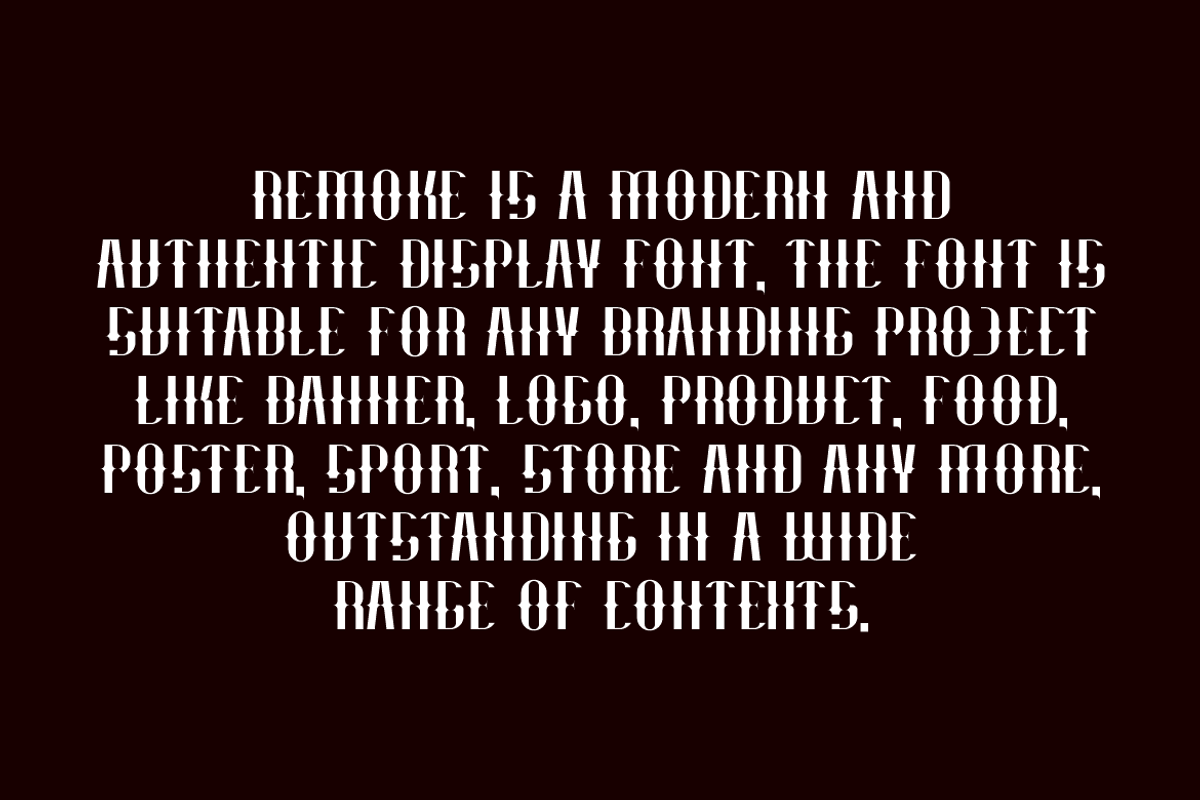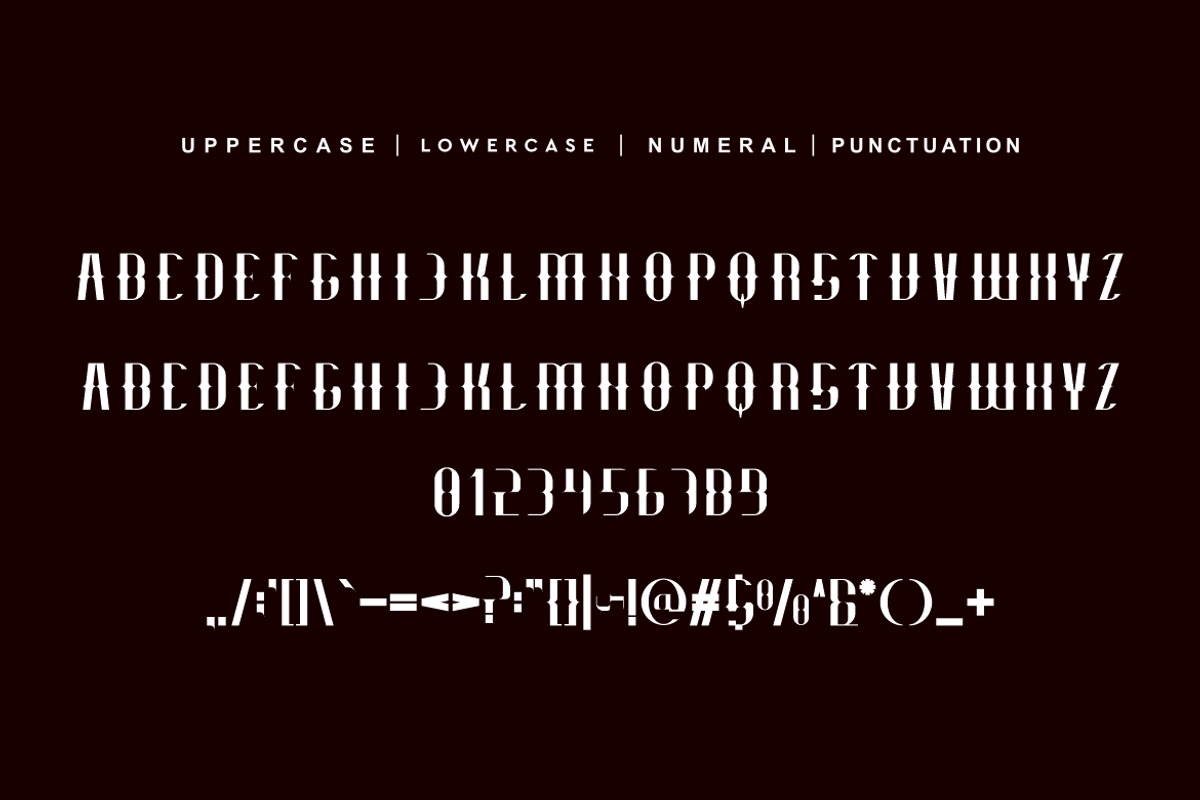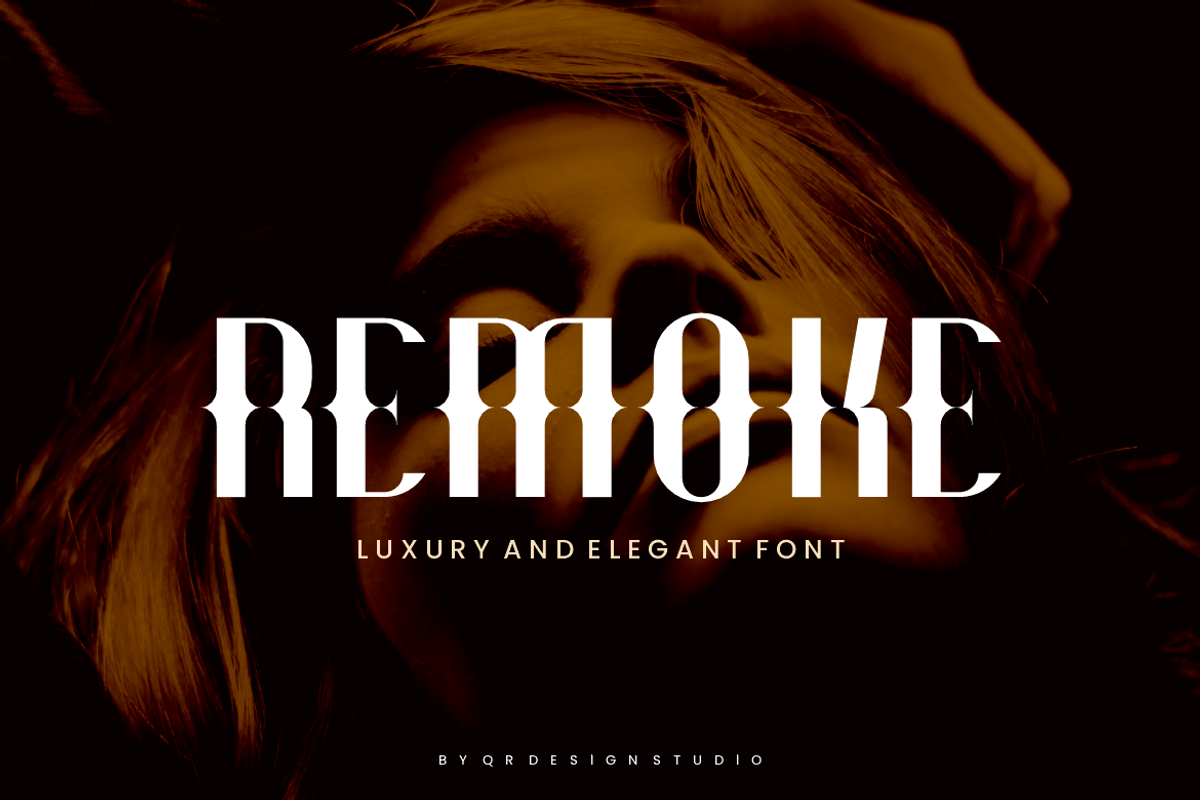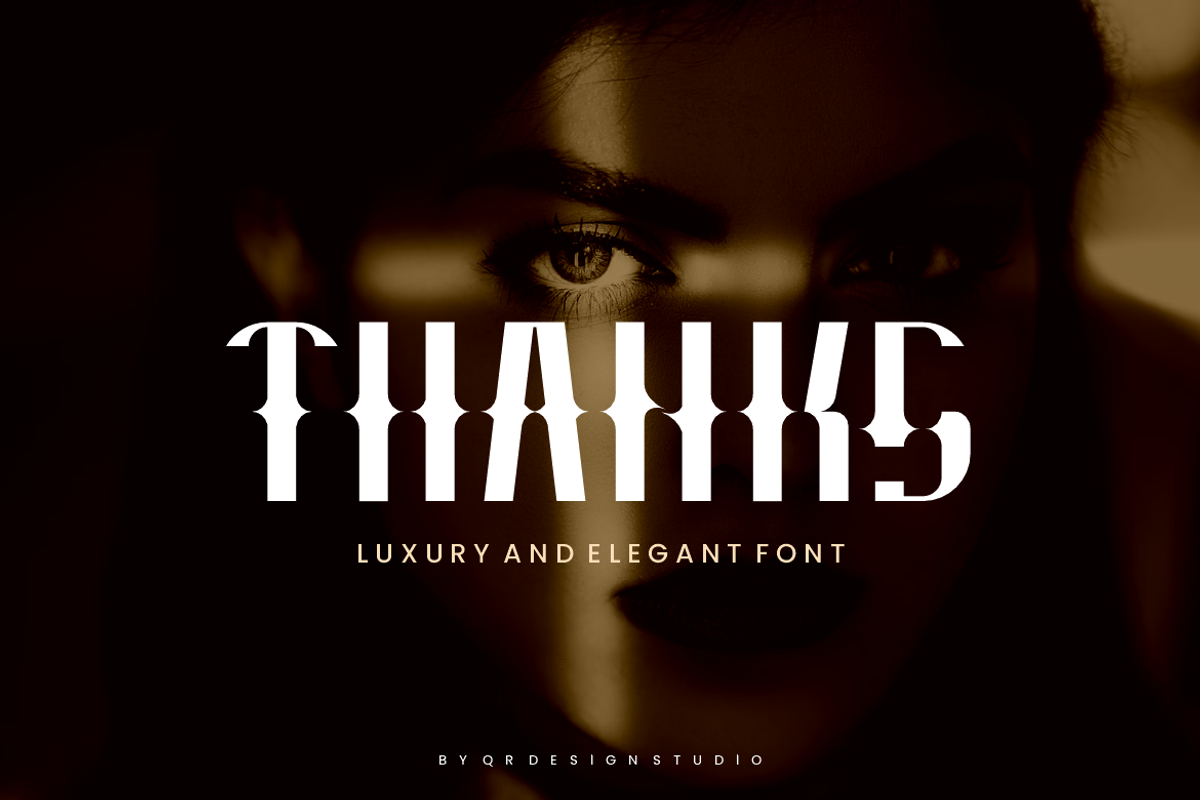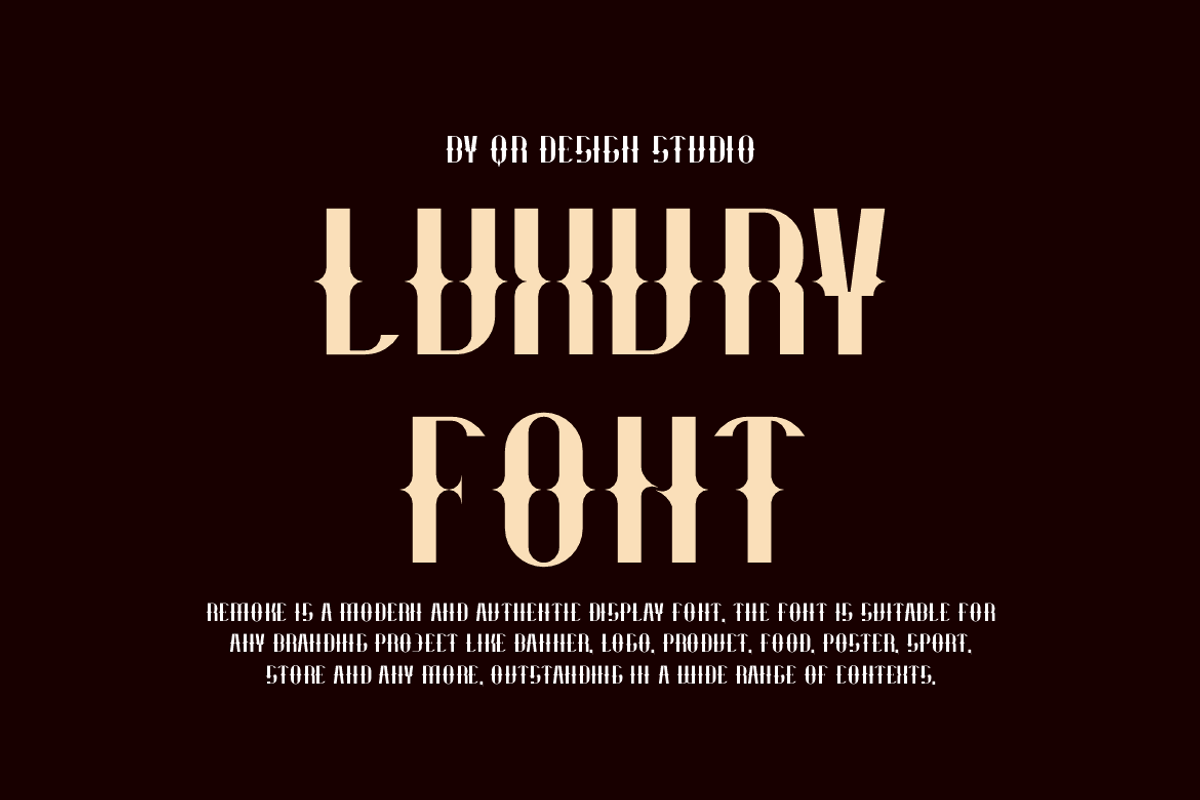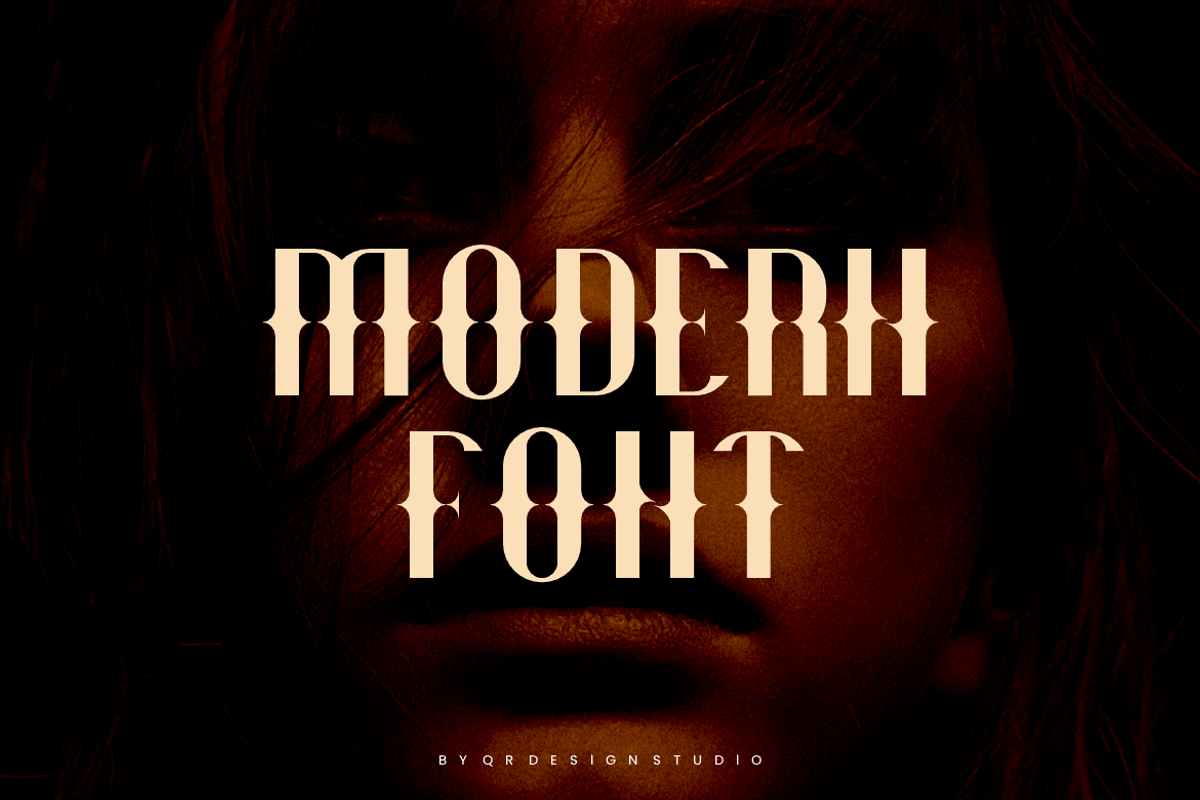
Remoke - Luxury & Elegant Font
Remoke - Luxury & Elegant Font is a bold and authentic display font. The font is suitable for any branding project like poster, logo, sport, and many more. Outstanding in a wide range of contexts.